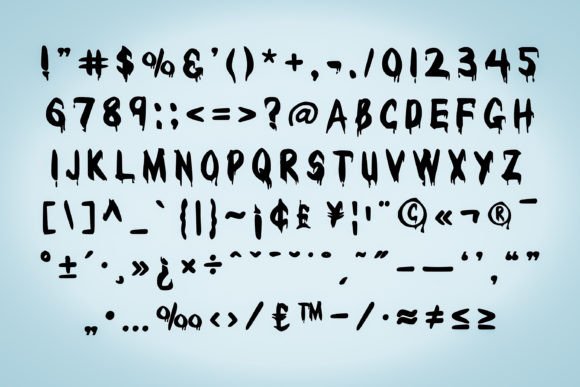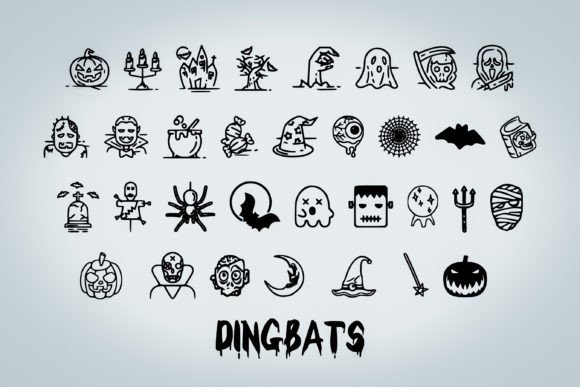
Fright Night Font: The Spookiest Display-Dingbat Combo for Your Halloween Projects
Are you looking for a font that will add a spooky touch to your Halloween projects? Look no further than the Fright Night Font, a fun horror display-dingbat combo font that’s perfect for creating eerie and mysterious designs. In this article, we’ll take a closer look at the Fright Night Font, its features, and how you can use it to create amazing Halloween-themed projects.
What is Fright Night Font?
Fright Night Font is a unique and creative font that’s specifically designed for Halloween-themed projects. It’s a display-dingbat combo font, which means it features a combination of letters, numbers, and dingbats (decorative symbols) that can be used to create eye-catching and spooky designs. The font is designed to be spooky and mysterious, making it perfect for Halloween-themed projects, such as party invitations, decorations, and treats.
Features of Fright Night Font
The Fright Night Font has several features that make it stand out from other fonts. Here are some of its key features:
- Unique and creative design: The Fright Night Font has a unique and creative design that’s perfect for Halloween-themed projects. The font features a combination of letters, numbers, and dingbats that can be used to create eye-catching and spooky designs.
- Display-dingbat combo: The font is a display-dingbat combo, which means it features a combination of letters, numbers, and dingbats that can be used to create eye-catching and spooky designs.
- Spooky and mysterious: The font is designed to be spooky and mysterious, making it perfect for Halloween-themed projects.
Ideas for Using Fright Night Font
The Fright Night Font is a versatile font that can be used for a wide range of Halloween-themed projects. Here are some ideas to get you started:
- Halloween party invitations: Create spooky and mysterious party invitations that will set the tone for your Halloween party.
- Halloween decorations: Use the Fright Night Font to create spooky and mysterious decorations, such as banners, signs, and garlands.
- Halloween treats: Use the font to create spooky and mysterious labels for your Halloween treats, such as candy, cupcakes, and cookies.
- Halloween crafts: Use the font to create spooky and mysterious crafts, such as Halloween-themed cards, gift tags, and scrapbook pages.
Here are some tips and tricks to help you get the most out of the Fright Night Font:
- Experiment with different colors: Experiment with different colors to create a unique and eye-catching design.
- Use the dingbats: Use the dingbats to add a spooky and mysterious touch to your design.
- Combine with other fonts: Combine the Fright Night Font with other fonts to create a unique and eye-catching design.
| Font Name | Fright Night Font |
| Author | The Tenacious Type Studio |